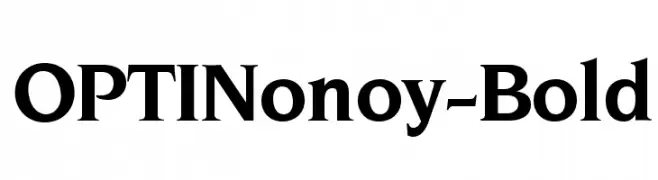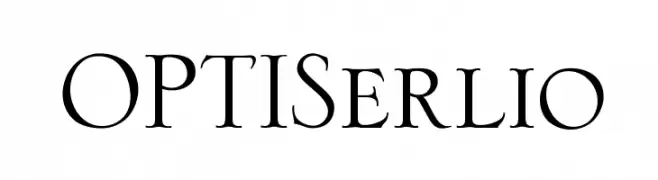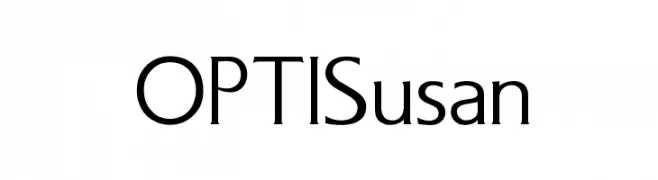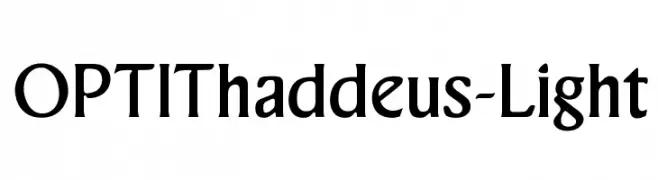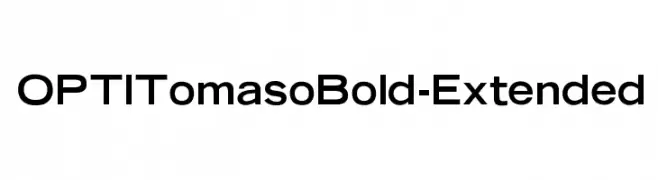
A classic serif font with elegant, well-defined characters and medium contrast.
A bold serif font with strong strokes and a classic, authoritative style.
A modern sans-serif font with a clean and elegant design.
A modern, italic sans-serif font with a sleek and dynamic appearance.
A modern, italicized font with a sleek, condensed style.
A classic, elegant font with a slight slant and moderate contrast.
A classic serif font with elegant strokes and balanced proportions.
A bold serif font with high contrast and strong serifs, offering a classic yet modern look.
A modern, geometric sans-serif typeface with a clean and professional look.
A bold, extended font with clean lines and uniform stroke width.